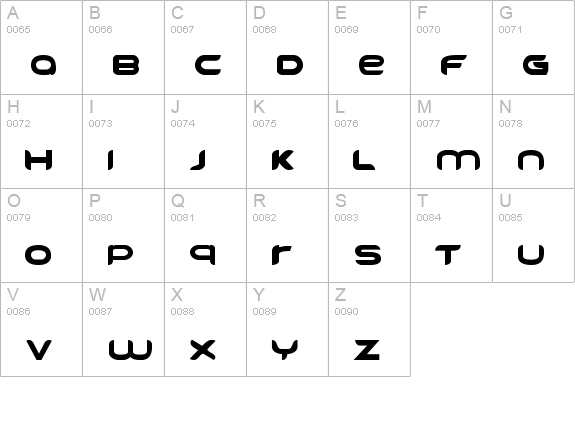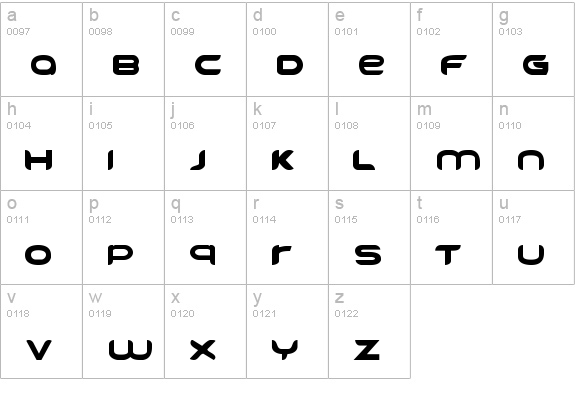
Introducing FREEDOM font, a captivating typeface that exudes a sense of liberation and limitless creativity. With its bold and modern design, this font radiates an undeniable spirit of freedom, making it the perfect choice for projects that demand a touch of rebelliousness and authenticity. FREEDOM font combines sleek lines and geometric shapes to create a harmonious balance between strength and elegance. Its carefully crafted letterforms effortlessly capture attention and convey a message of liberation and independence. Whether used for headlines, logos, or body text, this font commands attention and adds a unique flair to any design. What sets FREEDOM font apart is not only its captivating aesthetics, but also its availability as a free download at FontsMarket.com. That's right - this remarkable typeface is freely accessible, allowing designers, creatives, and enthusiasts to unlock their imagination without limitations. With just a few clicks, anyone can harness the power of FREEDOM font and infuse their projects with a sense of boldness and individuality. Designed with versatility in mind, FREEDOM font offers a wide range of weights and styles, allowing for seamless integration into various design contexts. Whether you're looking for a headline font that demands attention or a subtle yet impactful typeface for body text, FREEDOM font has the perfect variant to suit your needs. Unleash the power of FREEDOM font and watch your designs come to life with a touch of rebelliousness and authenticity. Download it now, free of charge, at FontsMarket.com and experience the freedom to create without boundaries. Let FREEDOM font be your creative companion, inspiring you to break free from conventions and embrace the limitless possibilities that lie ahead.